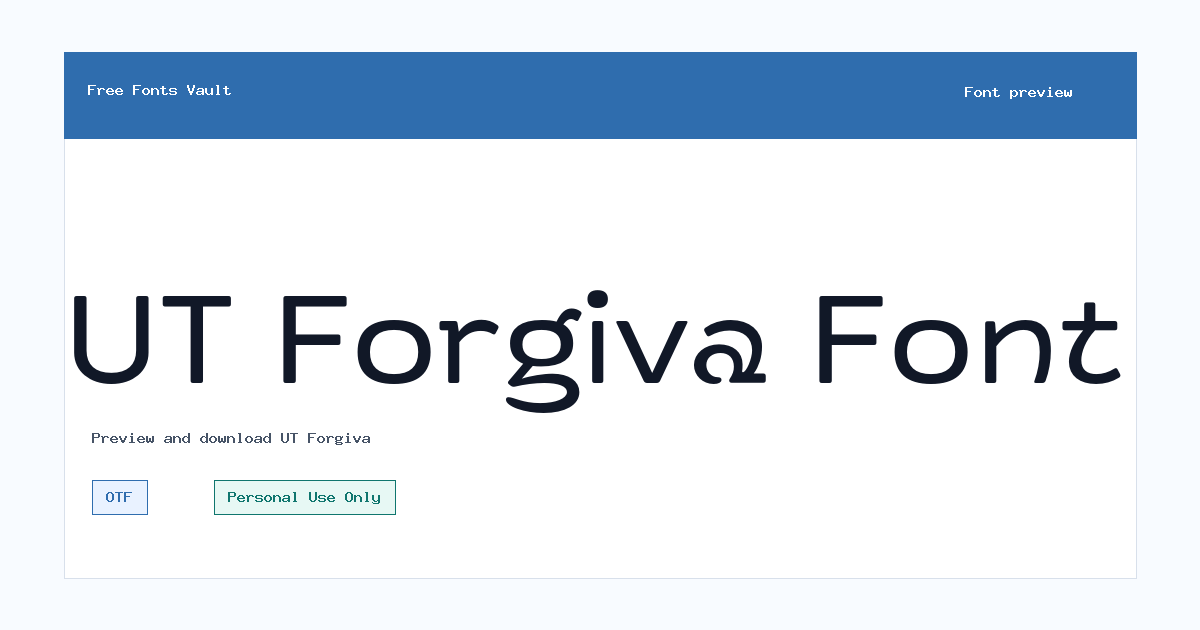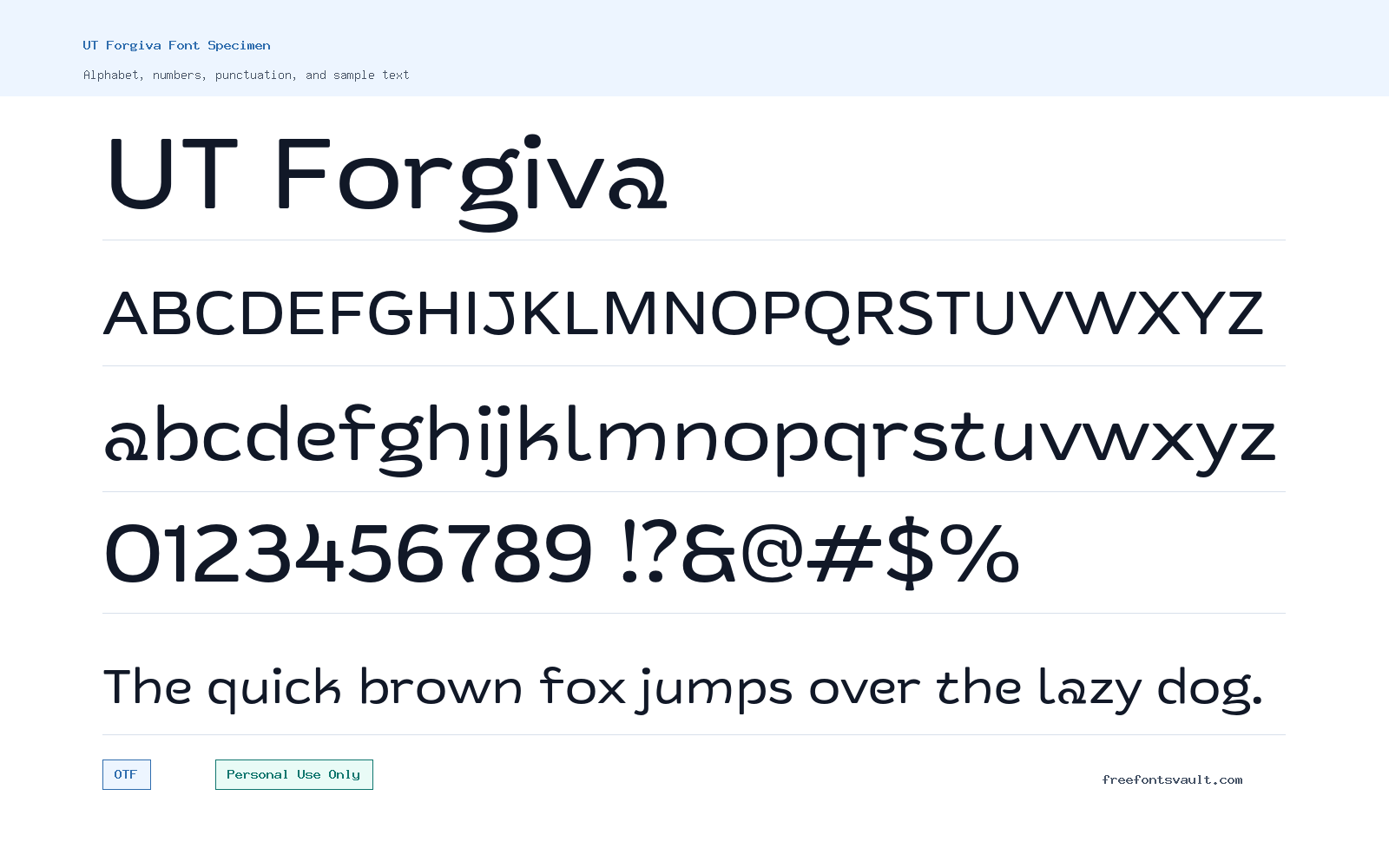
UT Forgiva
UT Forgiva font preview showing the family name
UT Forgiva Font
UT Forgiva font specimen showing alphabet, numbers, and sample text
• Designer Universitype Foundry
• Foundry Universitype Foundry
UT Forgiva font.
UT Forgiva is a sans serif font from Universitype Foundry, offered in a regular OTF style for personal-use projects. It is a good font to test when you need clean letterforms for short titles, simple branding drafts, social graphics, or layout mockups, while keeping the license limit in mind before using it in public or paid work.
About UT Forgiva
UT Forgiva keeps the focus on a straightforward sans serif look rather than decorative detail. Since the download is listed as a regular 400-weight OTF, it is best approached as a single-style typeface for testing headlines, names, labels, and compact display text. Use the preview area to check how its spacing, uppercase forms, numerals, and punctuation behave with your own wording. That matters more than a generic sample, especially if you plan to use the font for a logo draft, poster title, thumbnail, or personal design study.
For practical design work, start with short text before trying long paragraphs. A single regular style can work well for clean headings and simple layouts, but it will not give you the same flexibility as a larger family with bold, italic, or multiple weights. If your design needs hierarchy, pair UT Forgiva with a readable body font and let UT Forgiva handle the main display line. Also test it at the final size you intend to use, because a font that looks clear in a large preview may feel different in small navigation, captions, or dense text blocks.
• Sans serif style with a regular 400-weight OTF file
• Suited to previewing short titles, mockups, posters, and personal design tests
• Personal posters, social graphics, and title layouts
• Branding drafts, logo experiments, and typography mockups
What style or weight is available?
UT Forgiva is listed with one regular style at 400 weight. If you need bold, italic, or multiple weights, check whether the foundry offers a larger family or choose a companion font.
What is UT Forgiva best used for?
It is best tested for short text such as headings, posters, social media graphics, logo drafts, and personal design mockups. Preview longer text carefully before using it in paragraph-heavy layouts.
Who designed UT Forgiva?
The font is credited to Universitype Foundry.